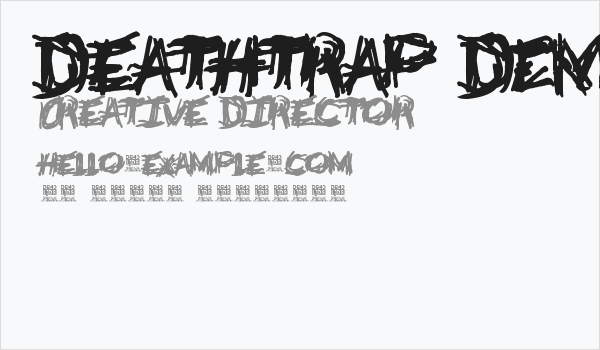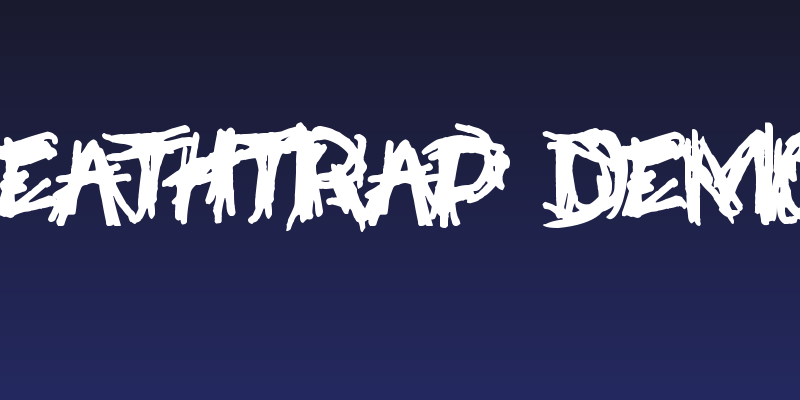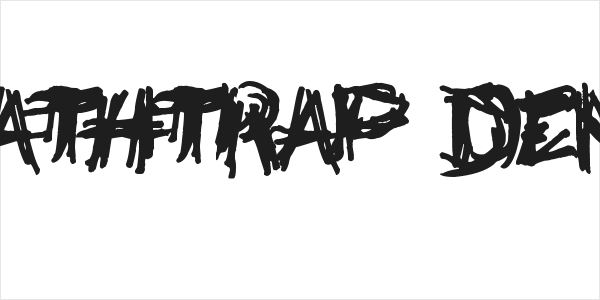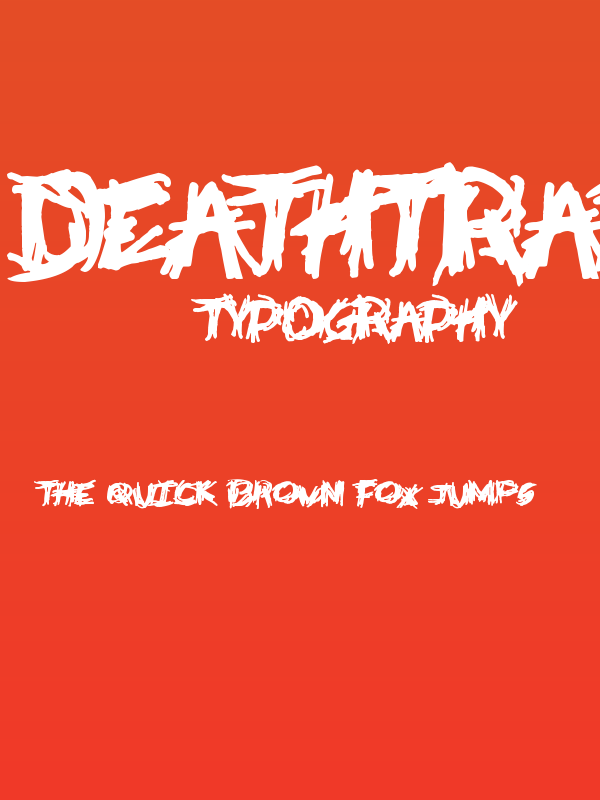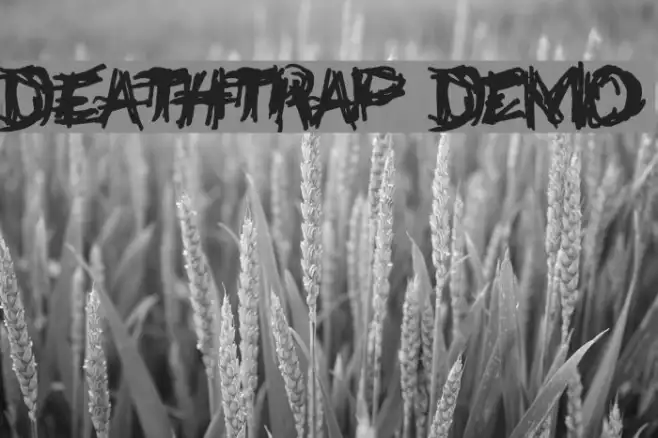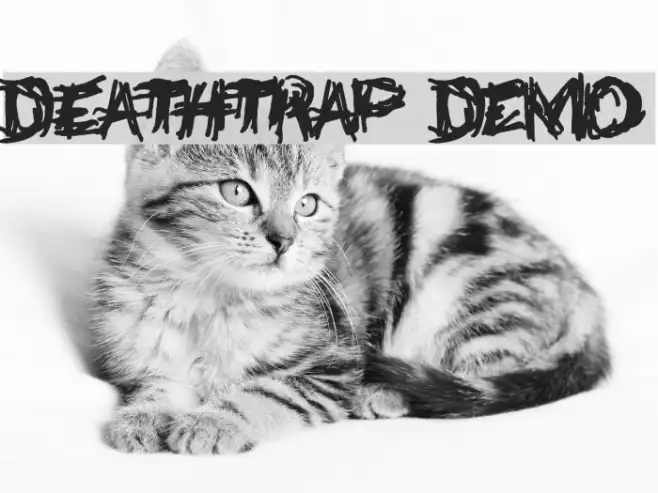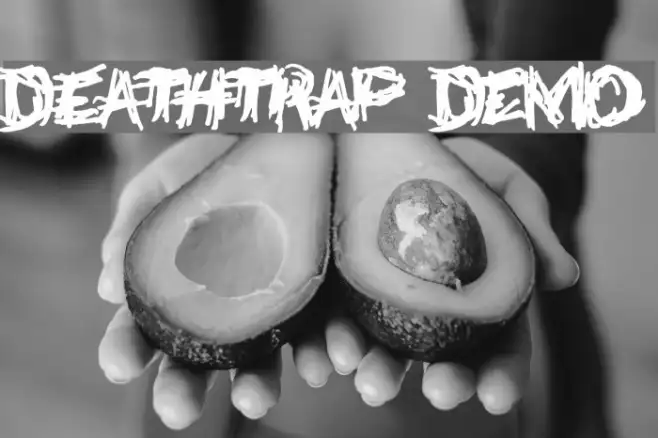
Deathtrap DEMO Font
Deathtrap DEMO Description
This font features a bold, aggressive style with a distressed, grunge appearance. The characters are heavily stylized with jagged edges and irregular strokes, creating a chaotic and intense visual impact. The uppercase and lowercase letters maintain a consistent aesthetic, emphasizing a raw and edgy feel. The numerals and special characters follow the same design principles, ensuring uniformity across all glyphs. This font is ideal for projects that require a strong, rebellious statement, such as music album covers, posters, or any creative work that seeks to convey a sense of urgency and intensity.
| Overall Style | Grunge, Intense, Chaotic |
| Proposed Projects | Ideal for music album covers, edgy posters, and rebellious branding. |